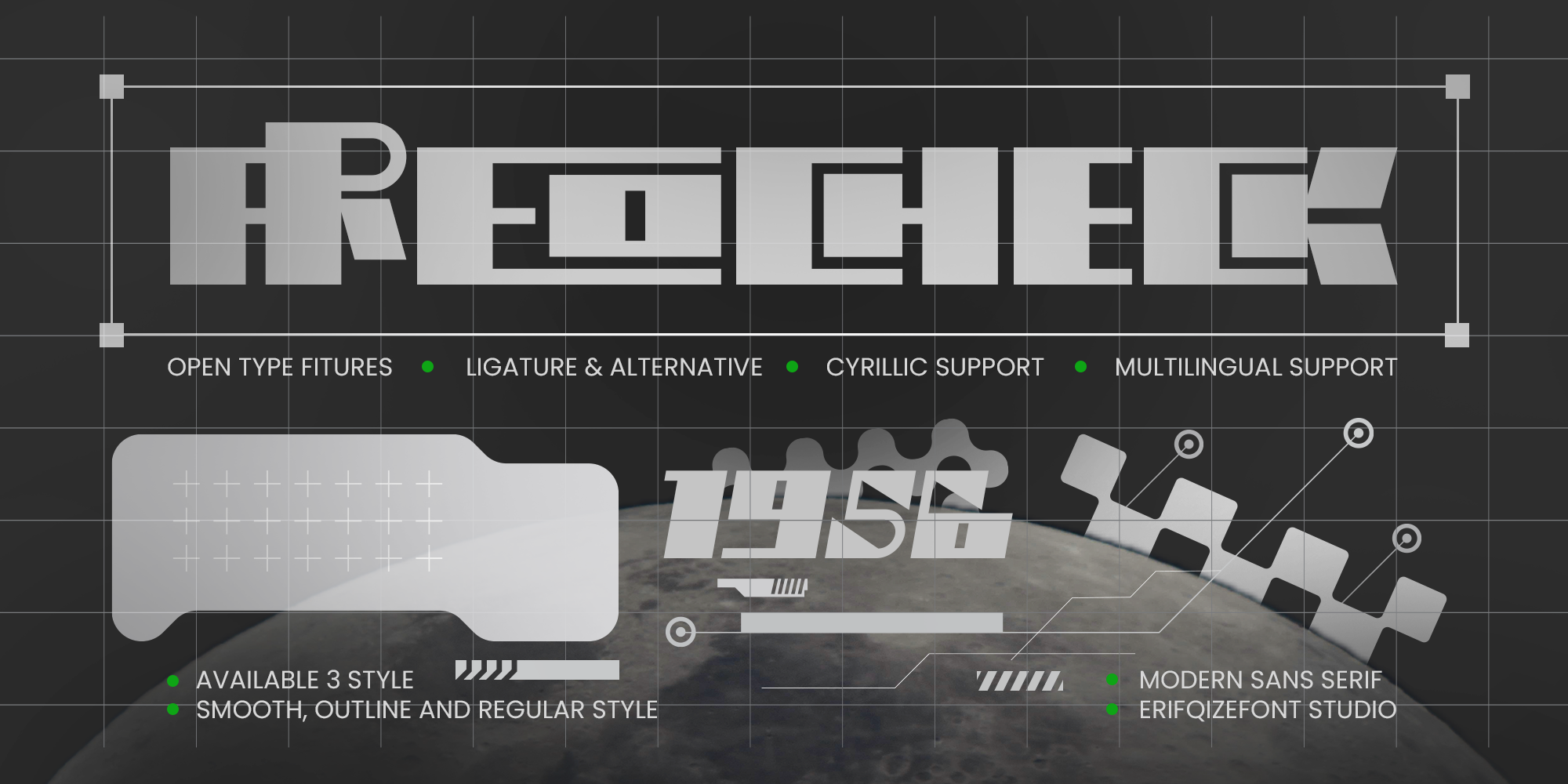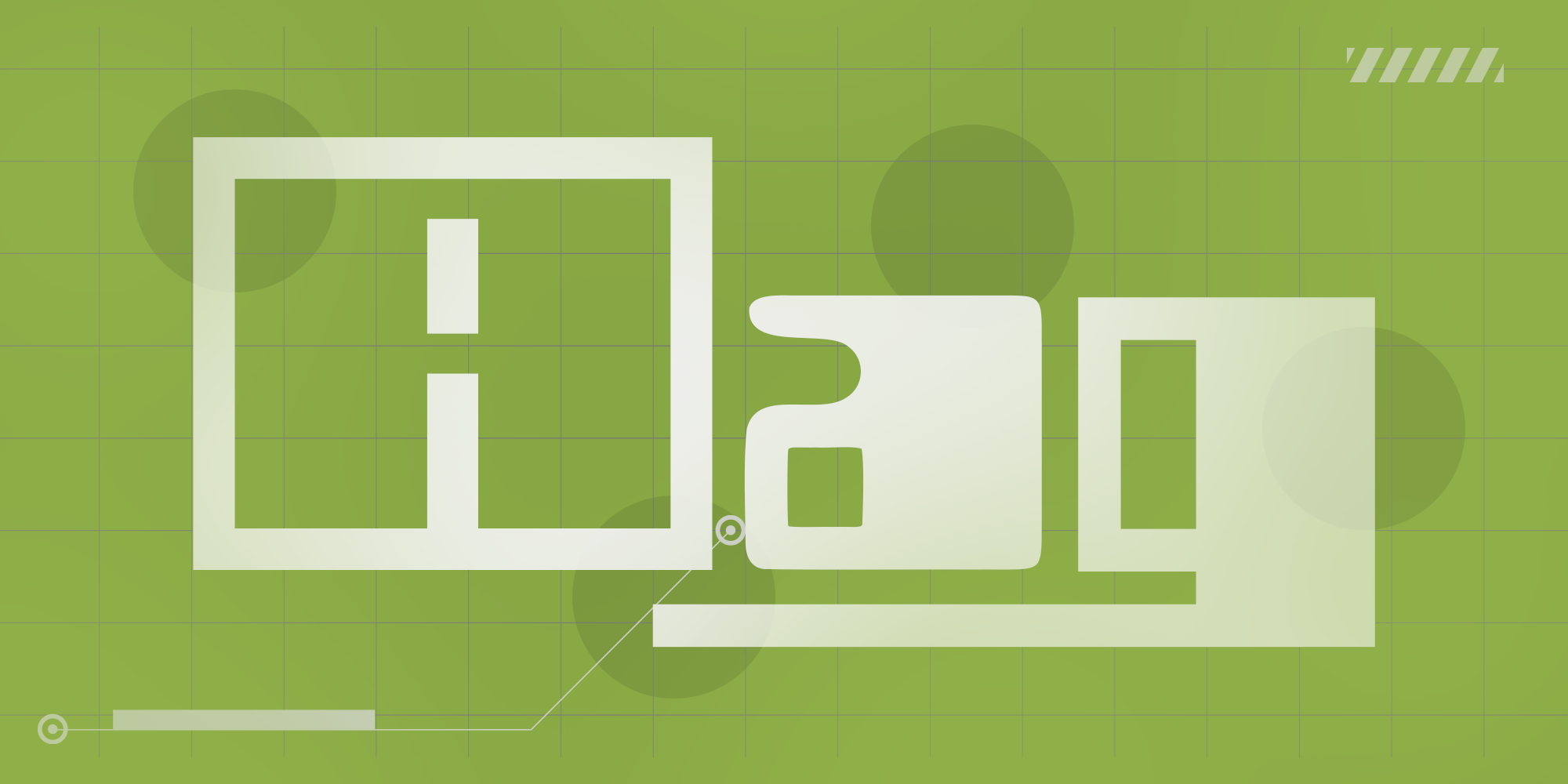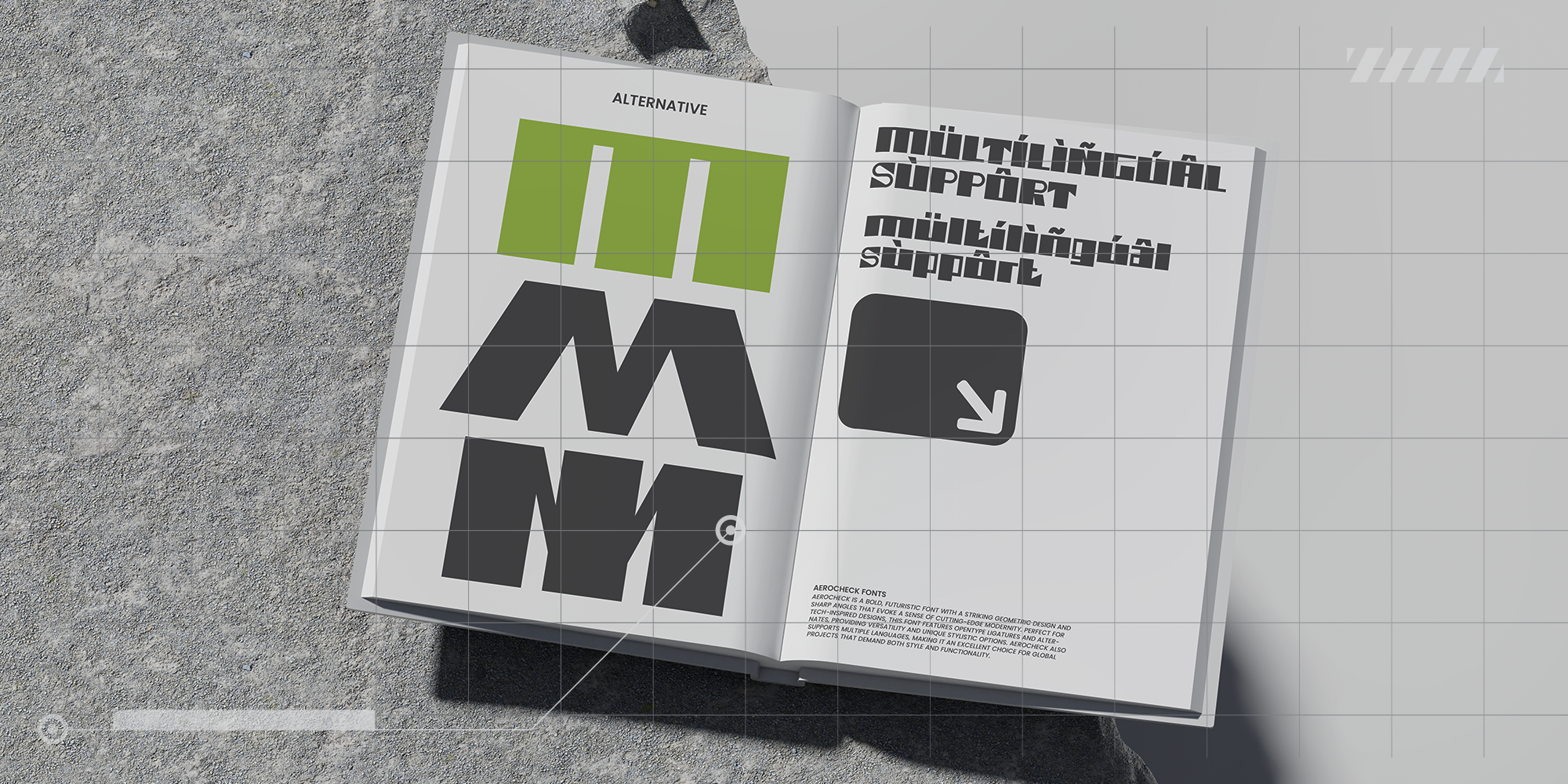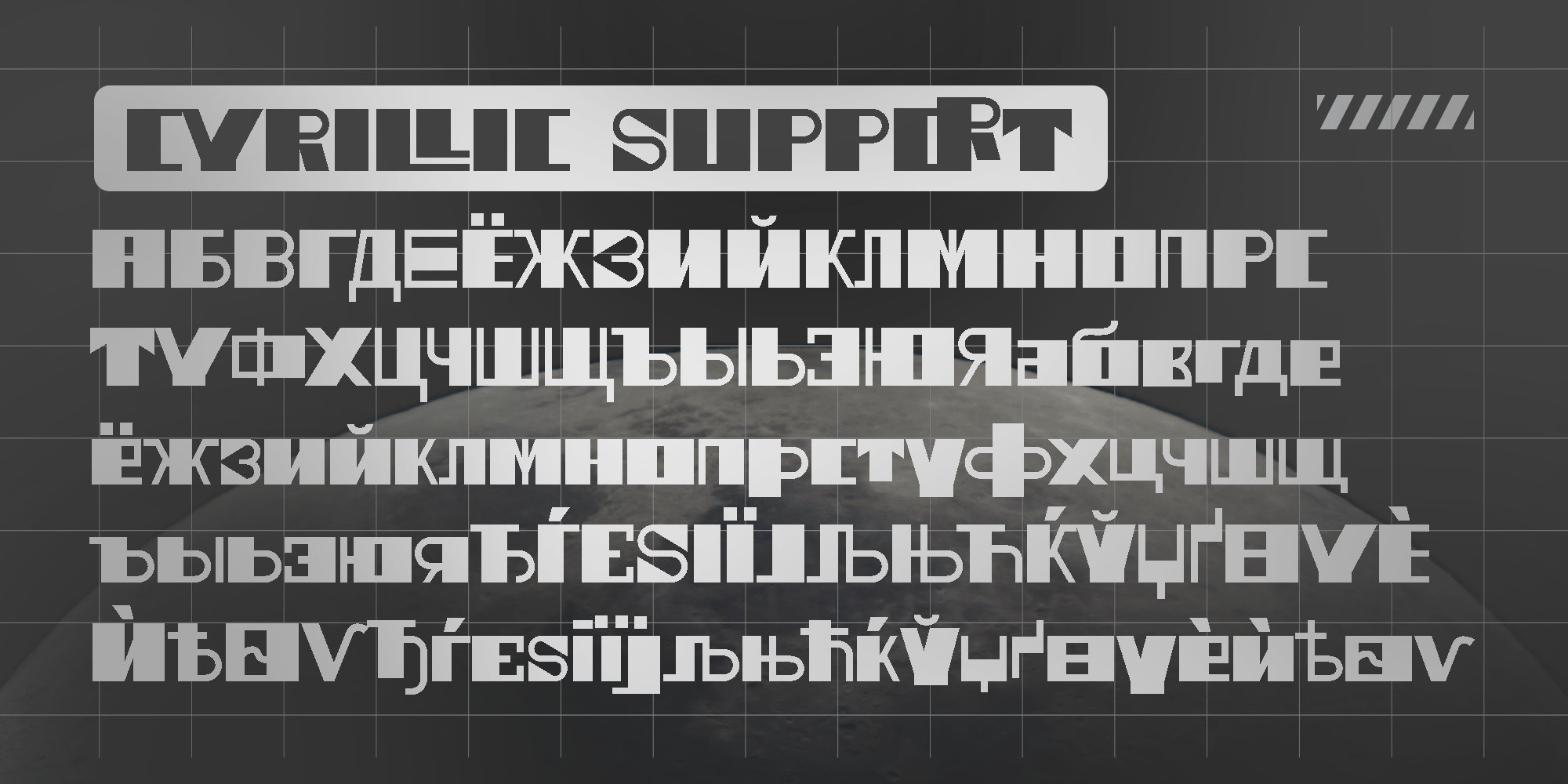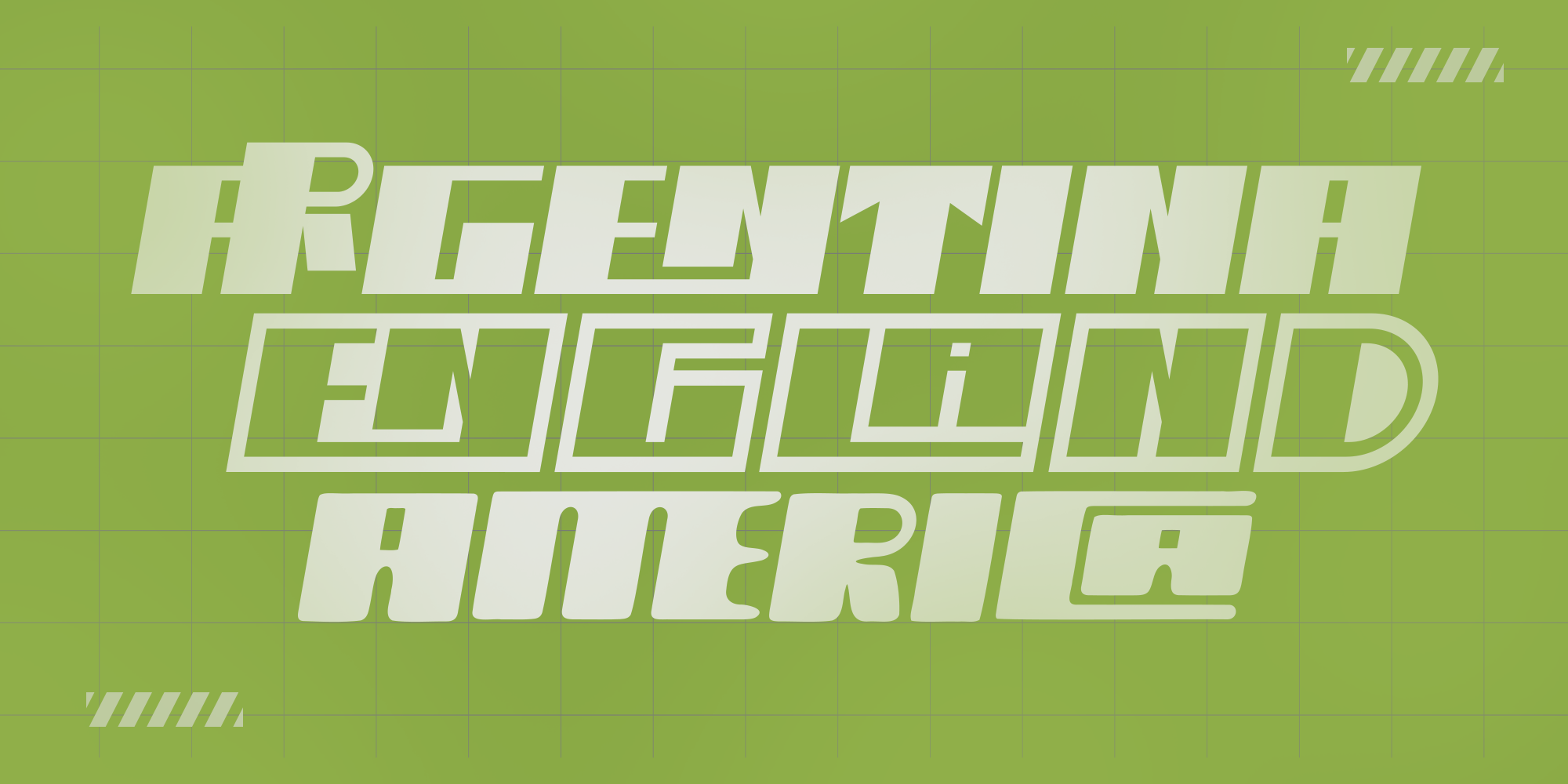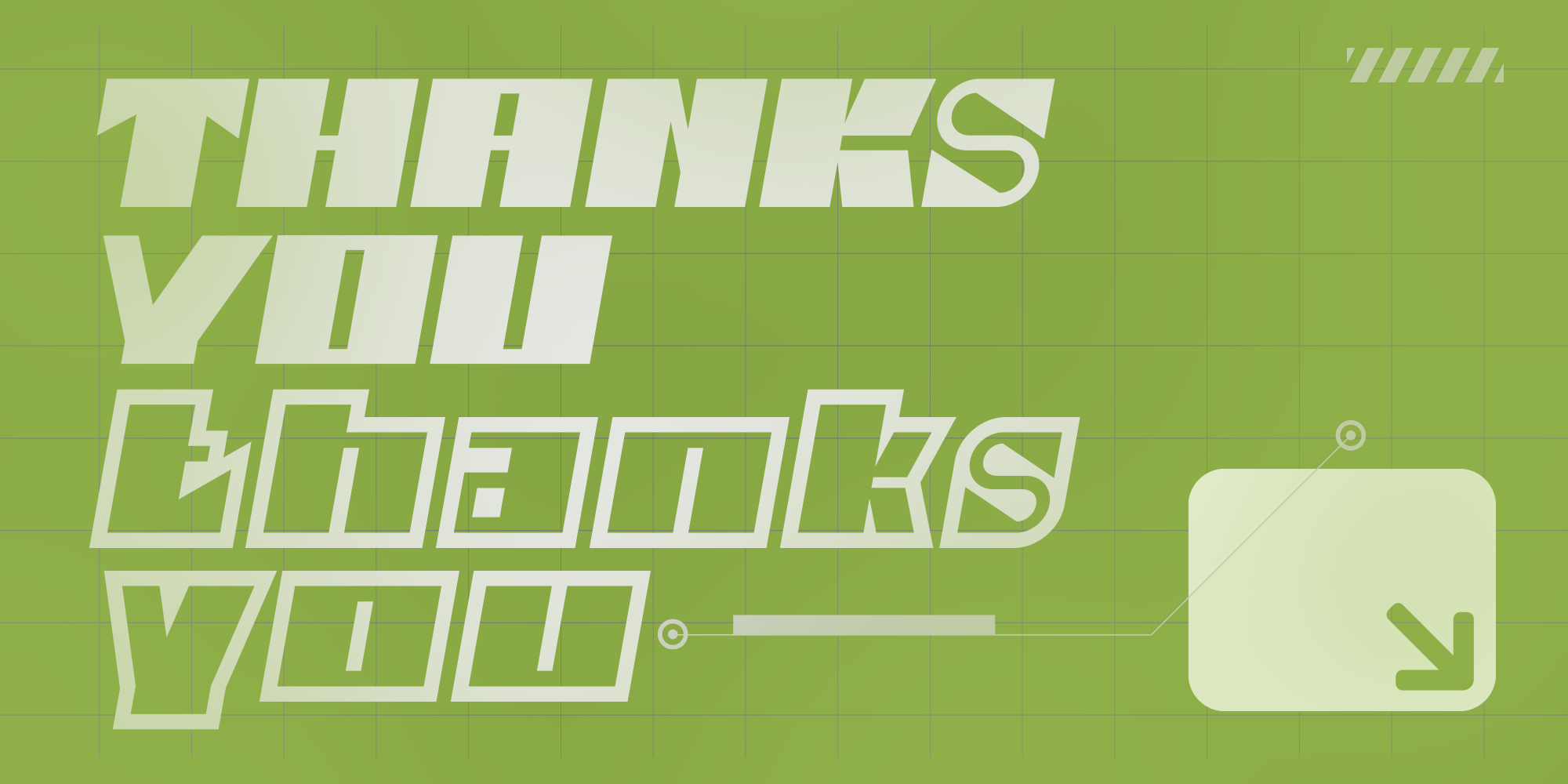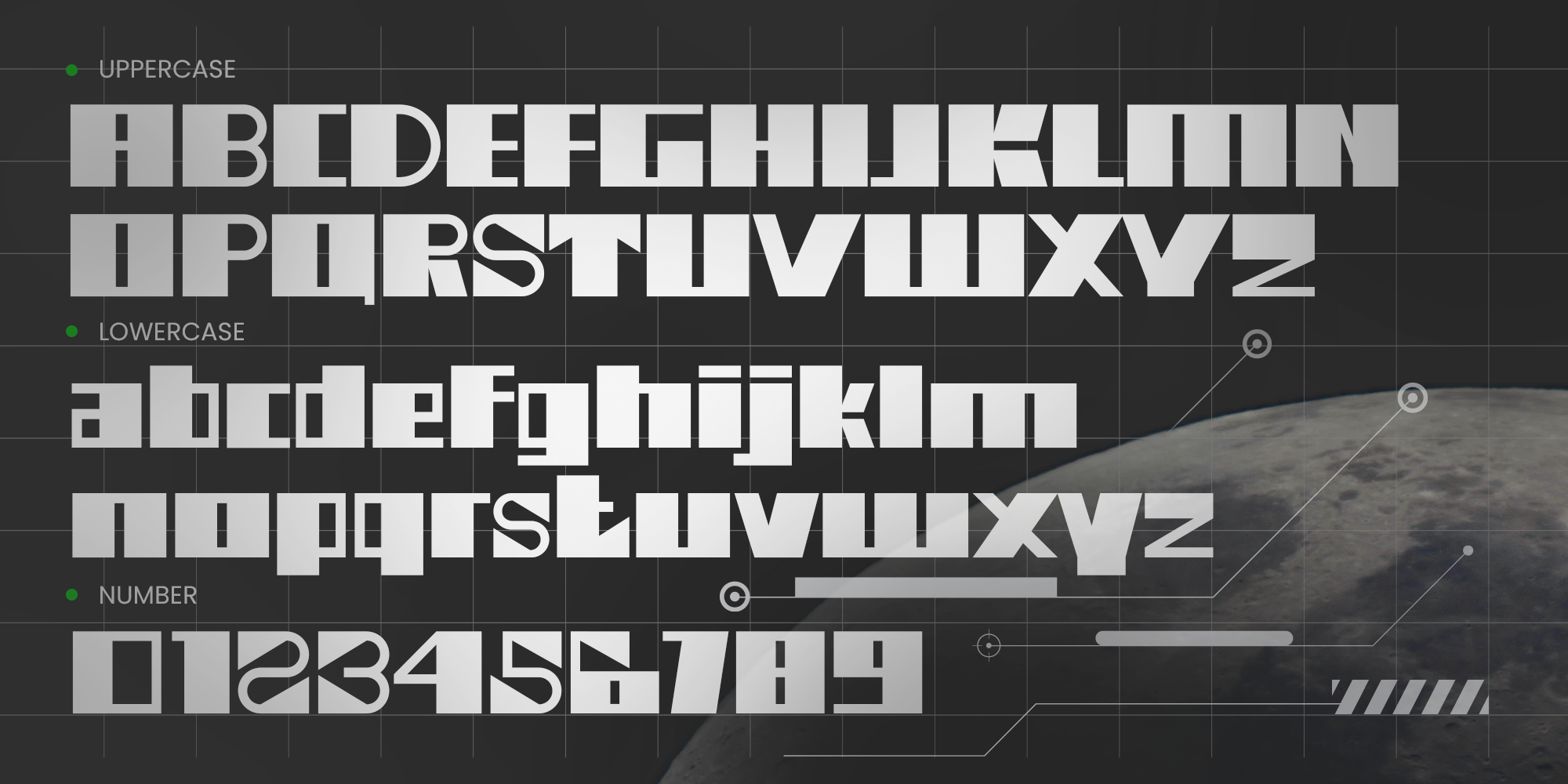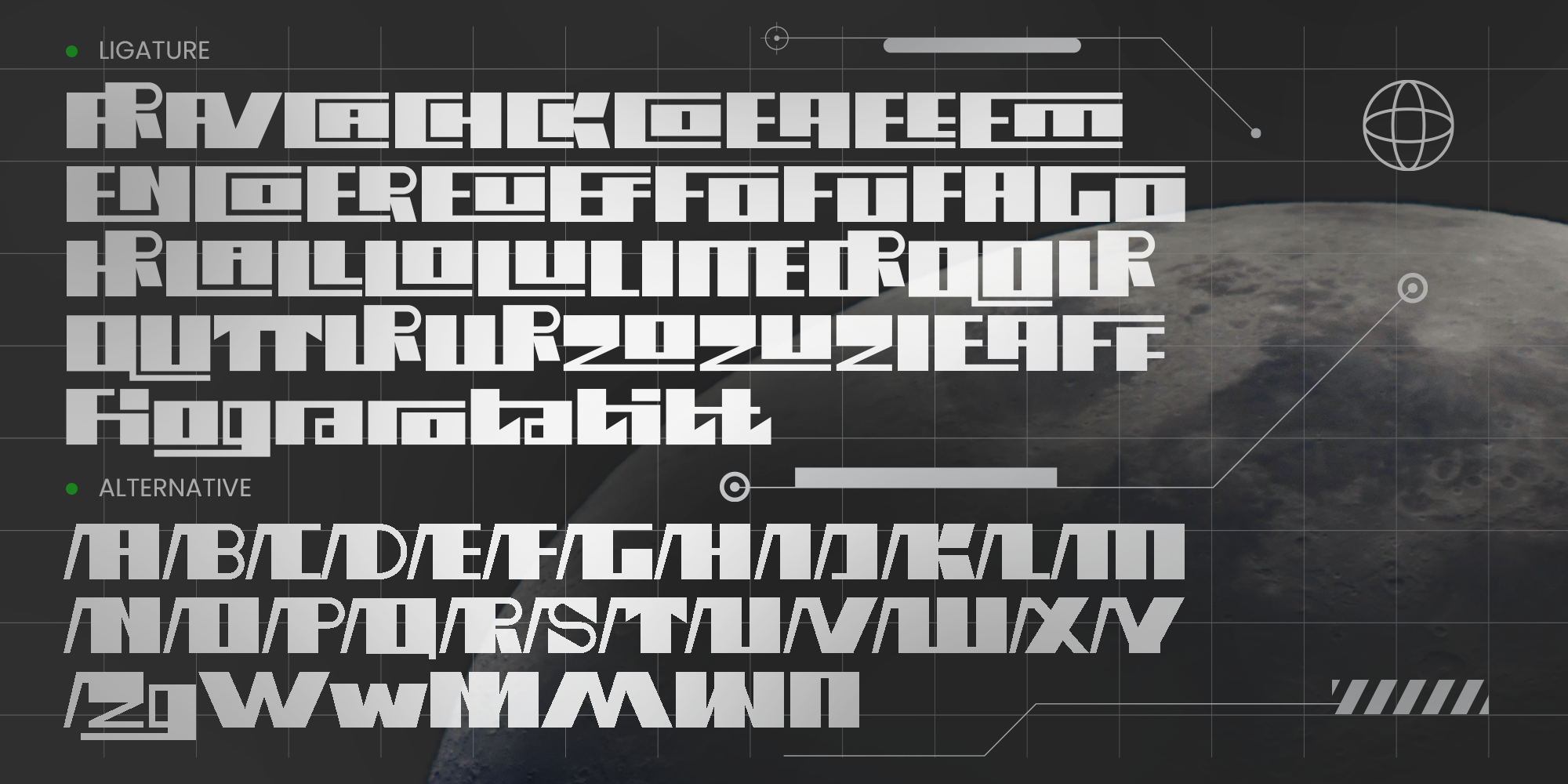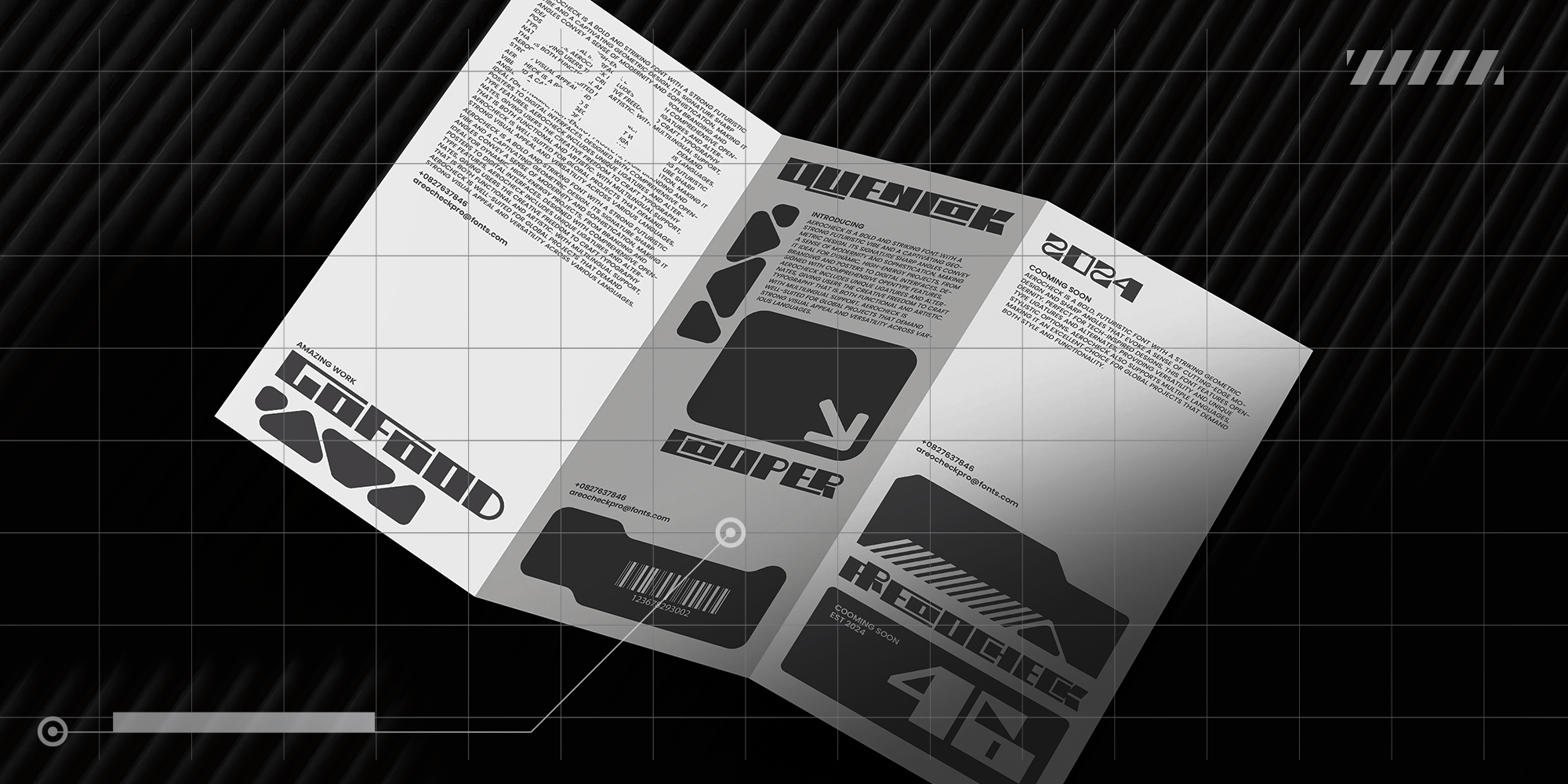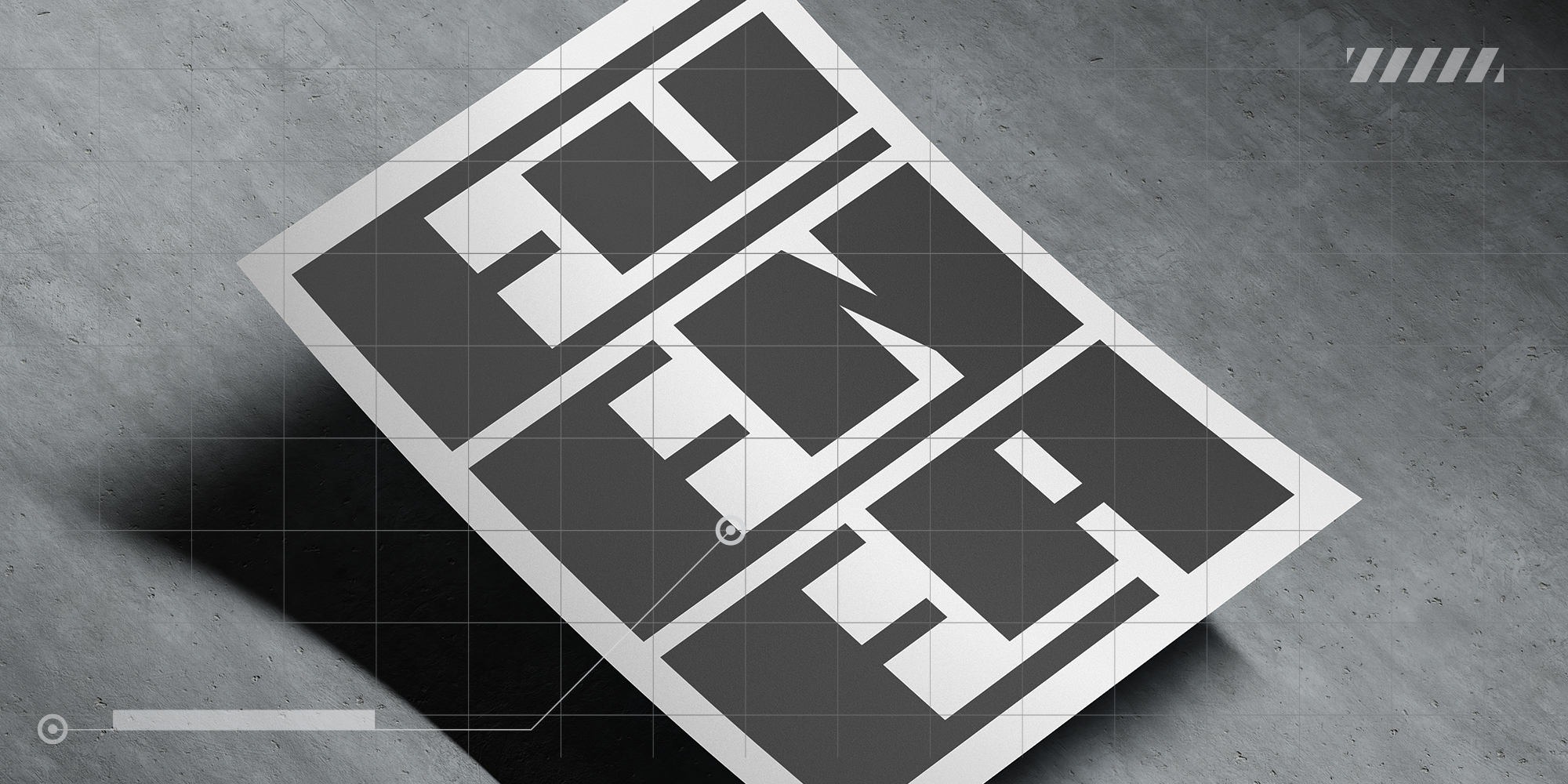
Areocheck
Areocheck Outline
Areocheck Smooth
AREOCHECK – Futuristic Geometric Font
AREOCHECK is a bold and visually striking typeface with a strong futuristic vibe and captivating geometric structure. Its sharp angles and clean precision exude modernity and sophistication, making it perfect for high-energy, tech-inspired projects.
Ideal for branding, posters, editorial design, digital interfaces, and more, AREOCHECK offers three versatile styles — Regular, Smooth, and Outline — giving you the flexibility to create layered or stand-alone designs with ease.
Equipped with rich OpenType features, including unique ligatures and alternates, this font empowers designers to explore expressive, artistic typography without compromising functionality. With built-in multilingual support, AREOCHECK is ready for global use across various languages and cultures.
Let AREOCHECK bring precision, energy, and futuristic flair to your next creative project.
Areocheck – Futuristic Geometric Font
AREOCHECK is a bold and visually striking typeface with a strong futuristic vibe and captivating geometric structure.